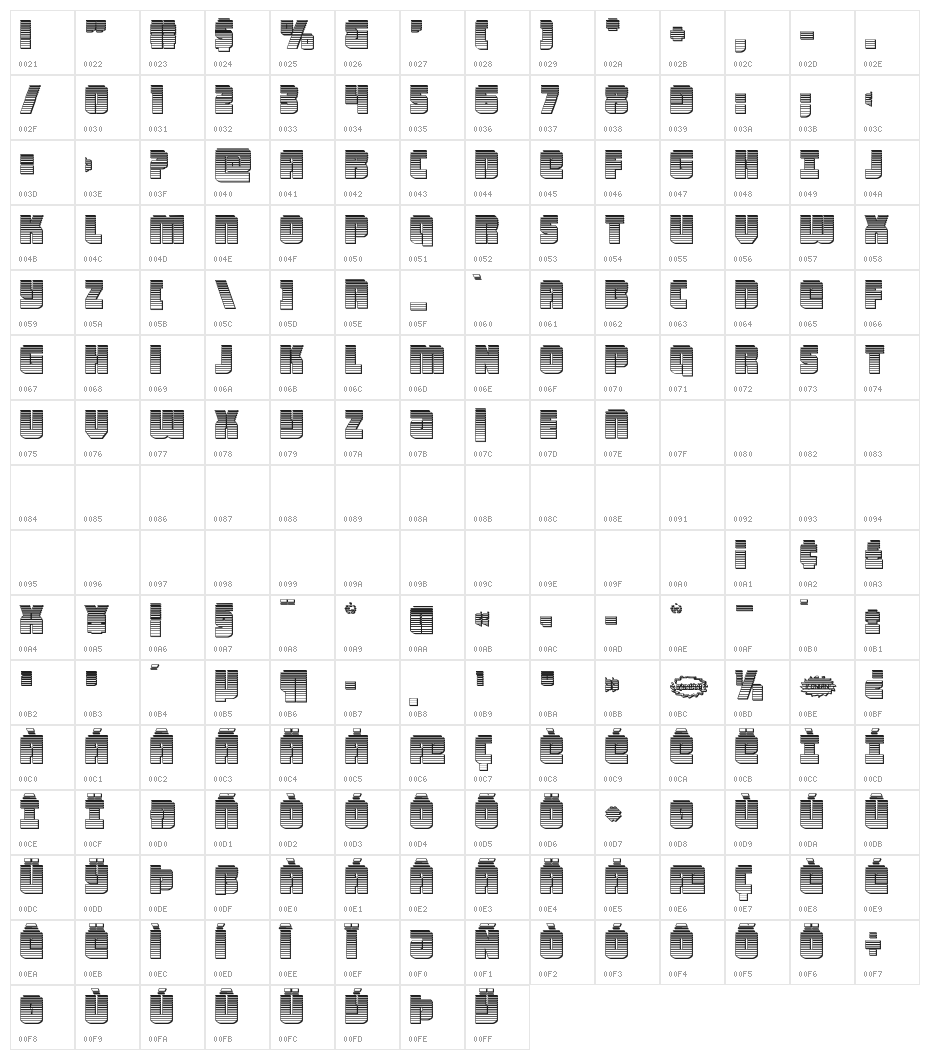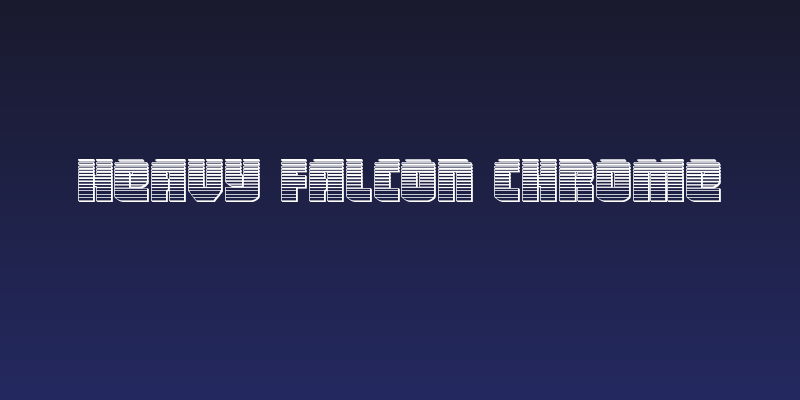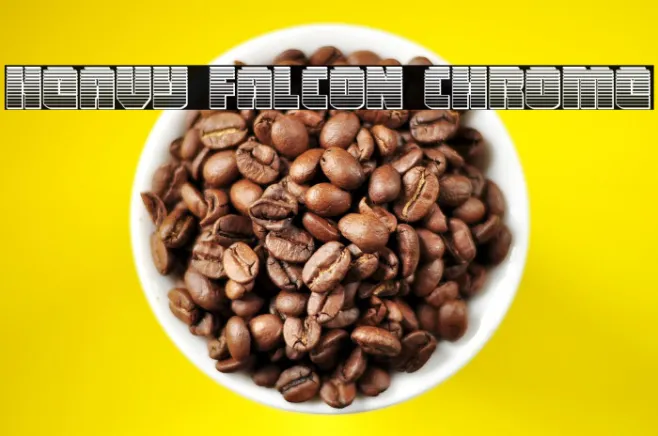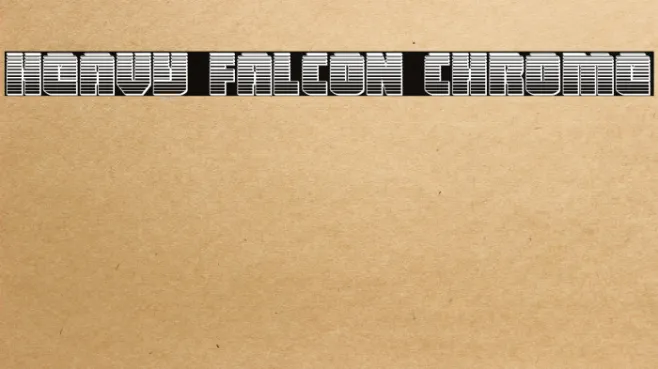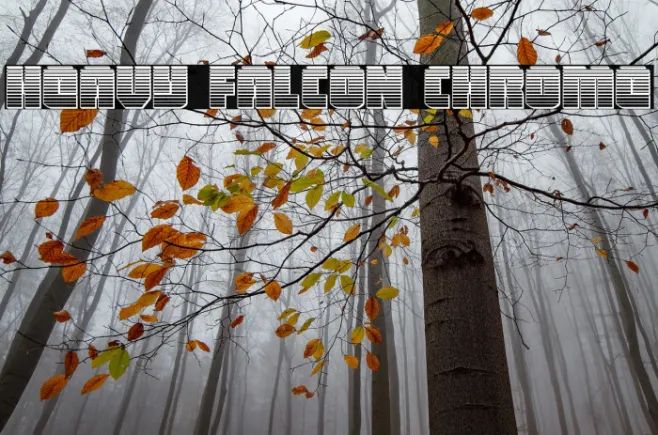
Heavy Falcon Chrome Font
Heavy Falcon Chrome Description
This font features a bold, layered design with a three-dimensional effect created by horizontal lines that give it a unique, futuristic appearance. The uppercase and lowercase letters, as well as numbers and special characters, are constructed with a consistent pattern of parallel lines, creating a sense of depth and movement. The geometric shapes of the characters are emphasized by the striped pattern, making it stand out as a display font. Its distinctive style is both eye-catching and modern, suitable for projects that require a strong visual impact.